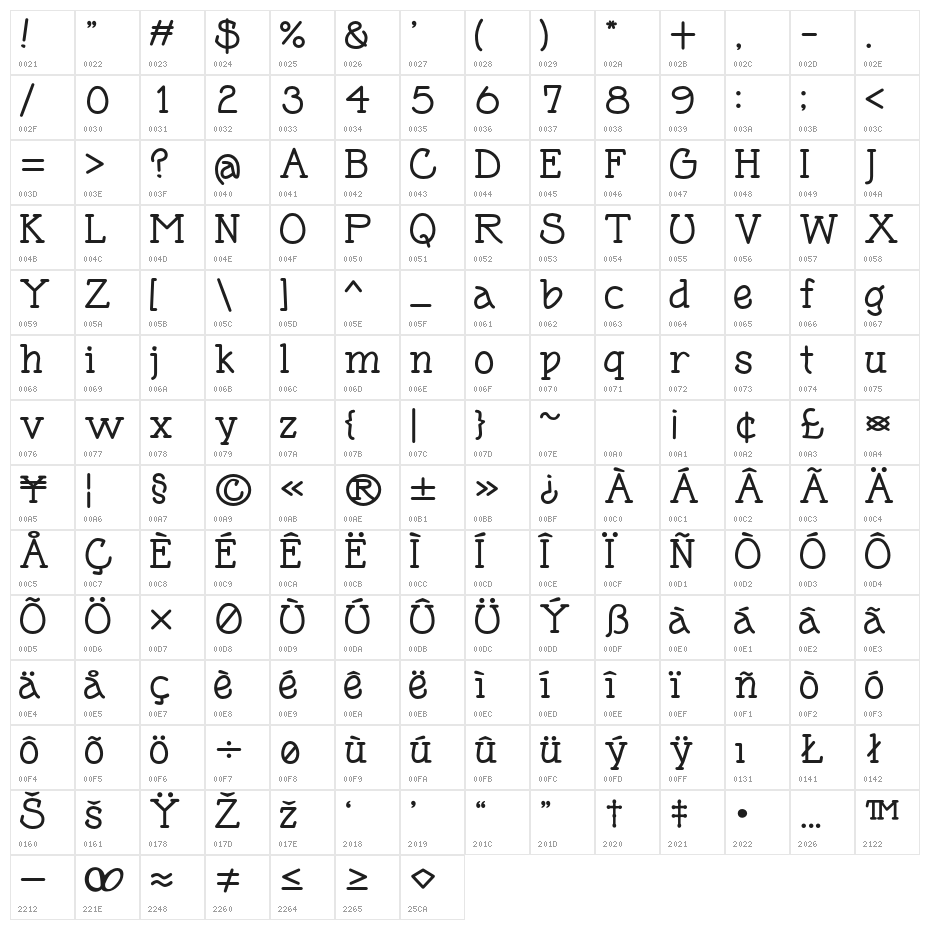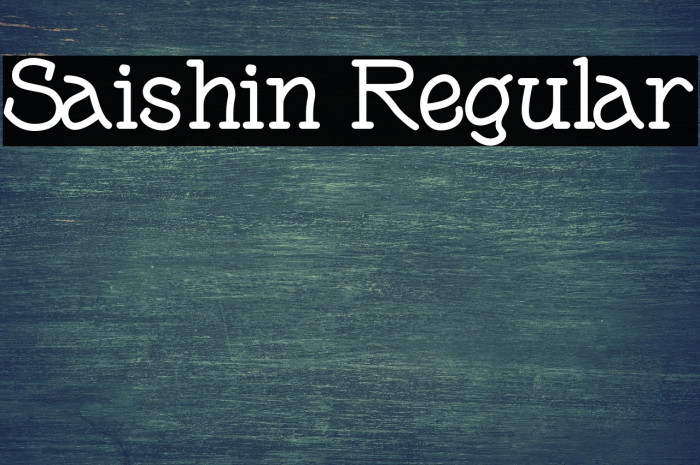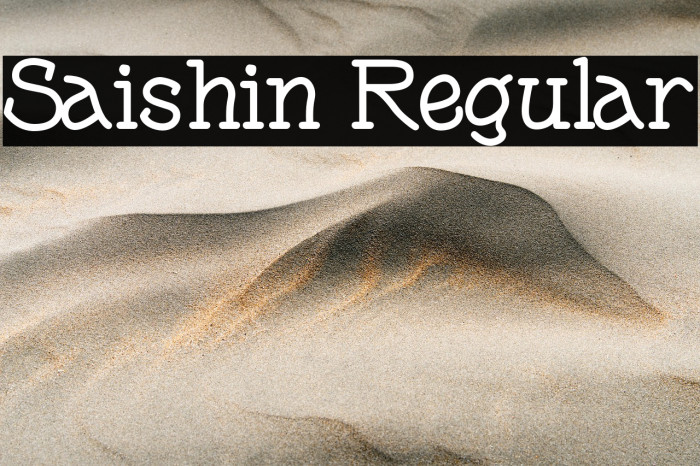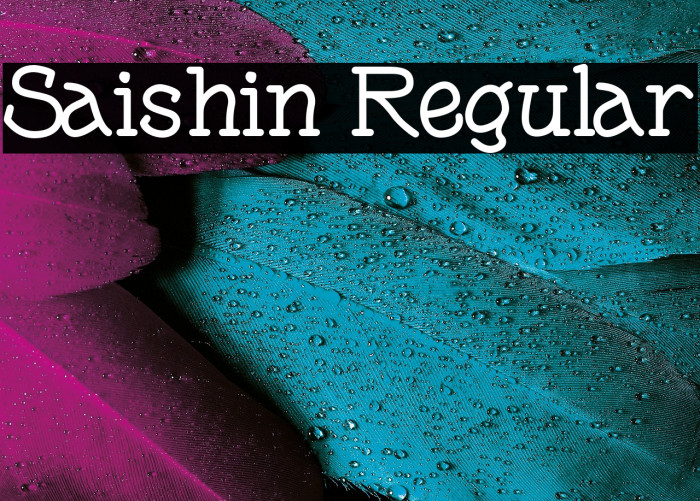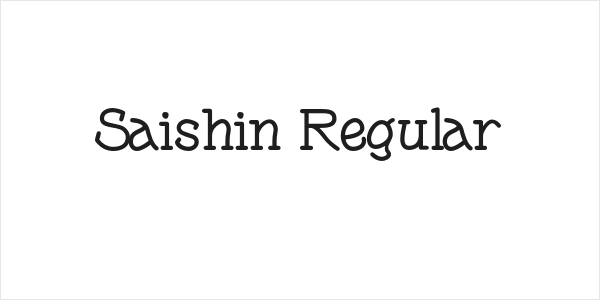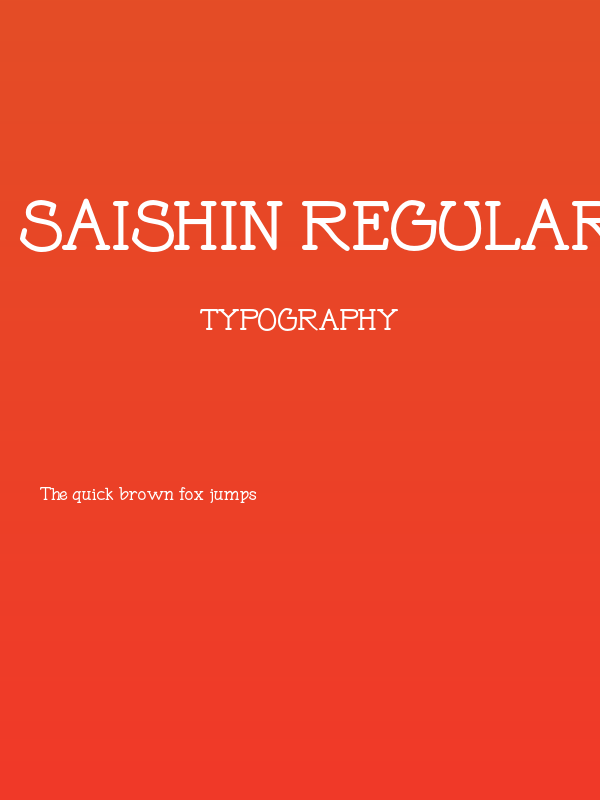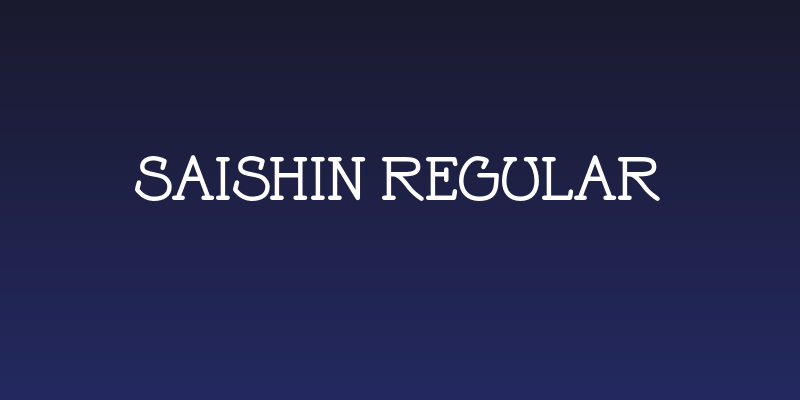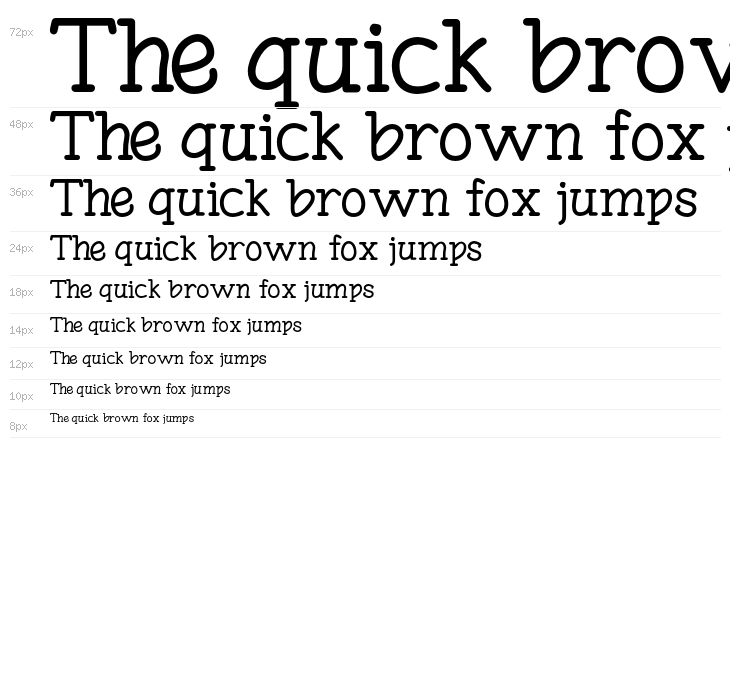
Saishin Regular Font
Saishin Regular Description
This font features a distinctive, modern style with a playful yet structured appearance. The characters are rounded with a slight curl at the ends, giving them a unique and approachable look. The uppercase letters are bold and prominent, while the lowercase letters maintain a consistent flow with a slightly whimsical touch. The numerals are clear and easy to read, and the special characters are well-integrated with the overall design. The font's balance between readability and style makes it versatile for various applications.